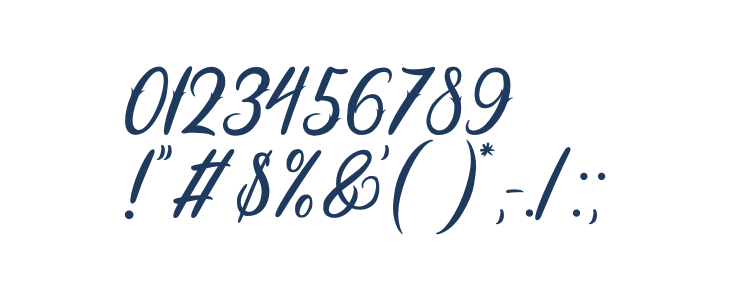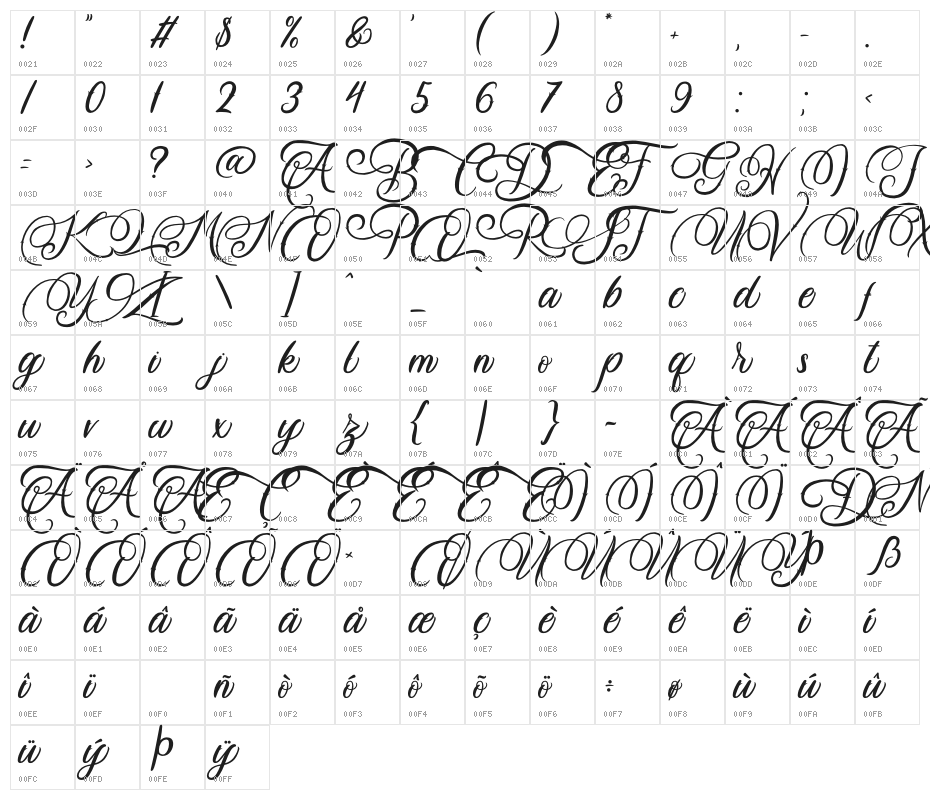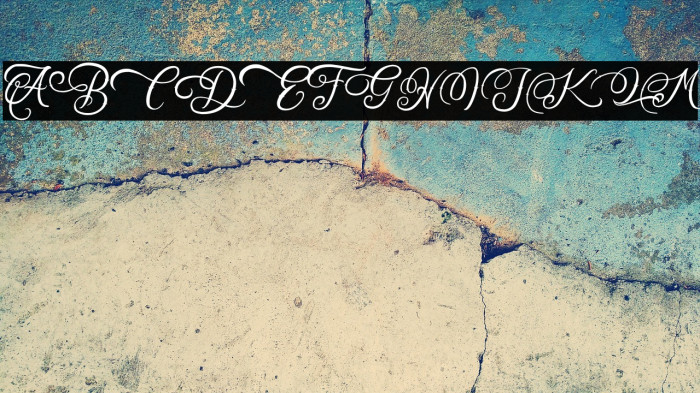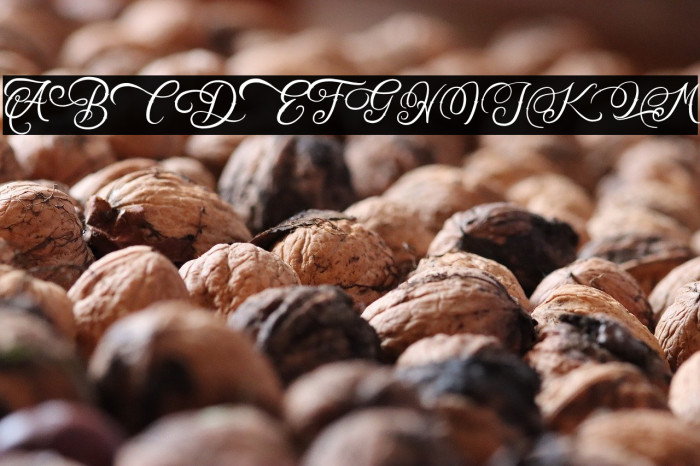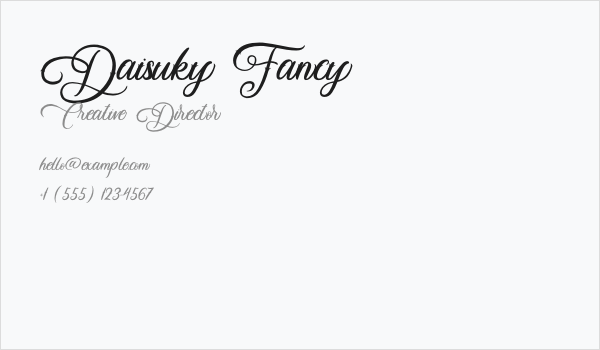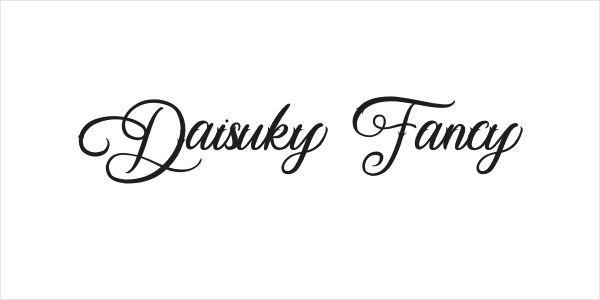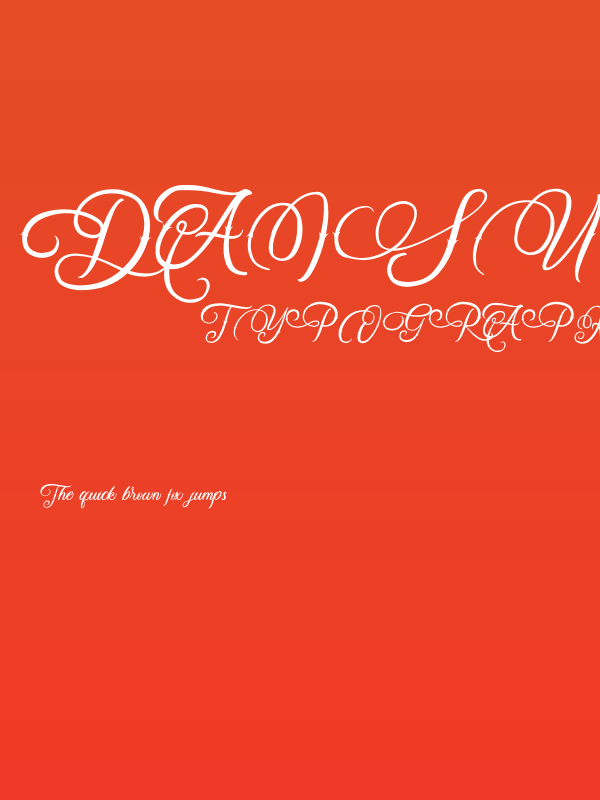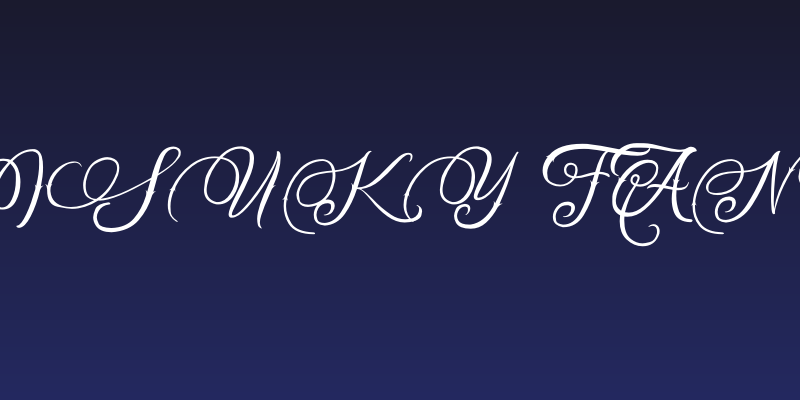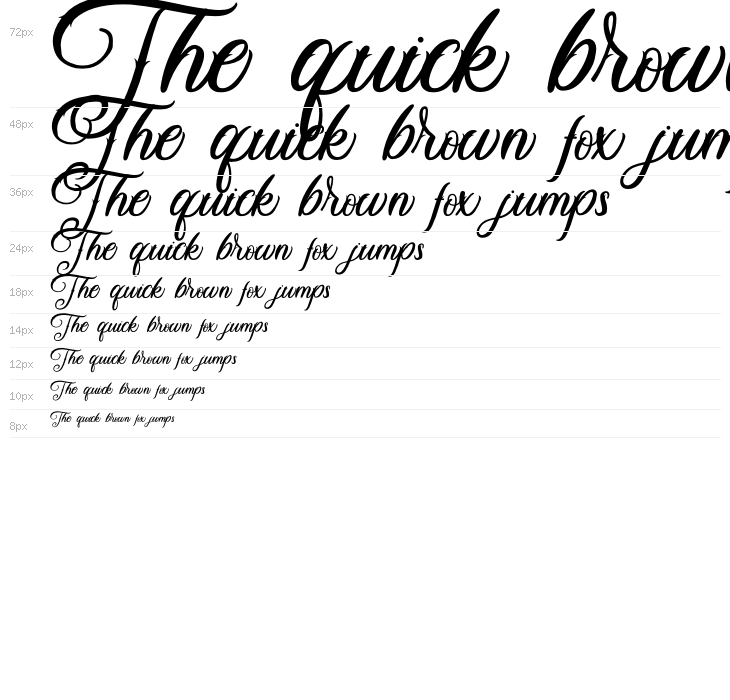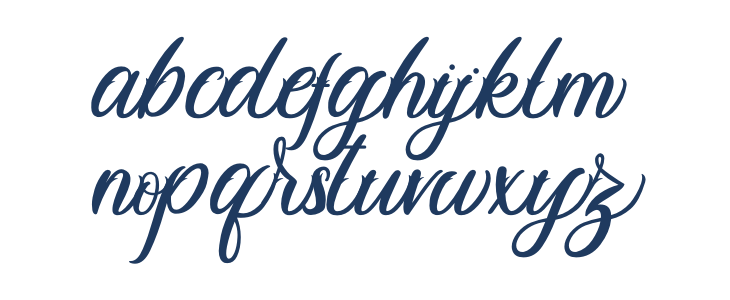
Daisuky Fancy Font
Daisuky Fancy Description
This elegant script font features a flowing, cursive style with intricate loops and swirls. The uppercase letters are adorned with decorative flourishes, giving them a sophisticated and ornate appearance. The lowercase letters maintain a smooth, connected flow, enhancing readability while retaining an artistic flair. The numerals are consistent with the overall style, featuring slight embellishments that add to the font's charm. Special characters are thoughtfully designed to match the aesthetic, making this font suitable for creative and formal applications.